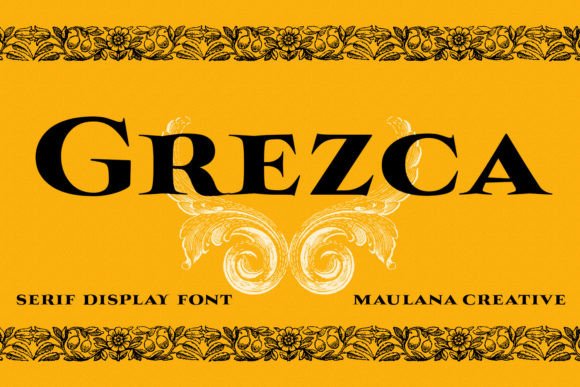
Enter the world of Grezca, a classic decorative serif display font that captivates hearts and ignites imaginations. With its medium stroke and playful character, Grezca dances across the screen, leaving a trail of elegance and sophistication. Its ligatures and alternates add a touch of whimsy, making it a true standout among serif fonts.
Grezca's versatility knows no bounds. Its allure extends from logo design to social media posts, captivating movie titles, and the covers of books that beg to be read. It breathes life into short texts and effortlessly carries the weight of long letters. Whether you're crafting primary text or seeking a harmonious companion for scripts or serifs, Grezca seamlessly blends, creating visual symphonies.
With Grezca, your designs will shine brighter than a constellation on a moonless night. Its PUA encoding ensures effortless access to a universe of glyphs and ligatures, empowering you to unleash your creativity without limits. Unleash the magic of Grezca and watch your designs transform into masterpieces that leave onlookers spellbound.
Grezca is more than just a font; it's an artistic journey, an invitation to explore the realms of visual expression. It beckons you to break free from the ordinary and embrace the extraordinary. With Grezca, your designs will radiate confidence, elegance, and a timeless charm that will leave an indelible mark on the hearts of your audience.